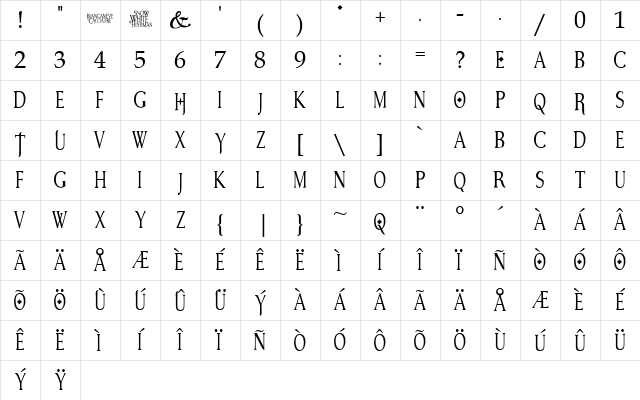
Snow White Regular
Foundry: P. A. Vannucci
Designer: P.A.Vannucci
Complete Snow White Regular glyph index. Displaying only characters natively supported by Snow White Regular font.
Design Context for Snow White
Snow White is a composed and adaptable typeface that performs quietly and consistently across a wide range of design contexts.